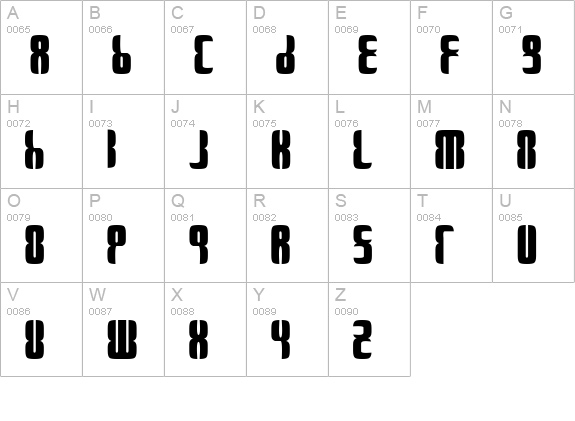
Kewken Font Details
Kewken font is a stunning typeface that combines elegance with modern style, making it perfect for various design projects. Its clean lines and graceful curves give any text a sophisticated and polished look. This versatile font can be used for both headlines and body text, ensuring that your message is conveyed with clarity and impact. Whether you're designing a logo, creating a website, or working on a print project, Kewken font will effortlessly elevate your design to the next level. One of the best features of Kewken font is that it is free to download at FontsMarket.com. This means that you can easily access this high-quality typeface without any cost. FontsMarket.com offers a wide range of fonts, and Kewken font is just one of the many gems available for free. Downloading Kewken font is a simple and straightforward process. Once you have it, you can use it for personal and commercial projects without any restrictions. This means you can create stunning designs, whether it's for your own pleasure or for clients, without worrying about licensing issues. With its timeless appeal and the convenience of being freely available to download at FontsMarket.com, Kewken font is a must-have for any designer or creative individual. Embrace the beauty and versatility of this font and bring your designs to life with its captivating presence.